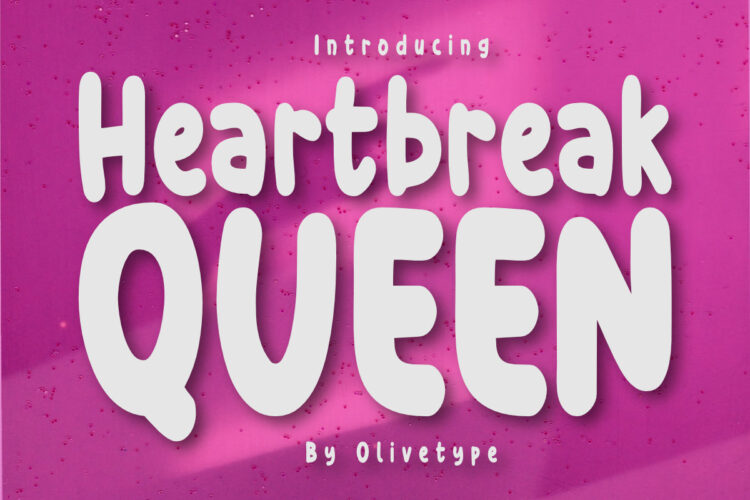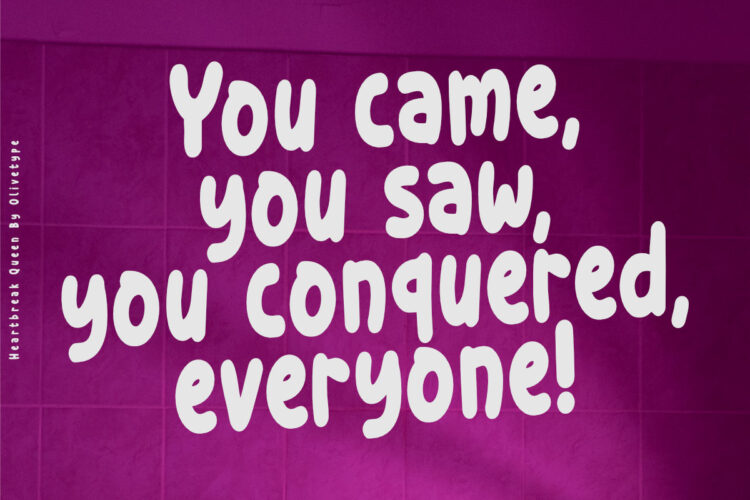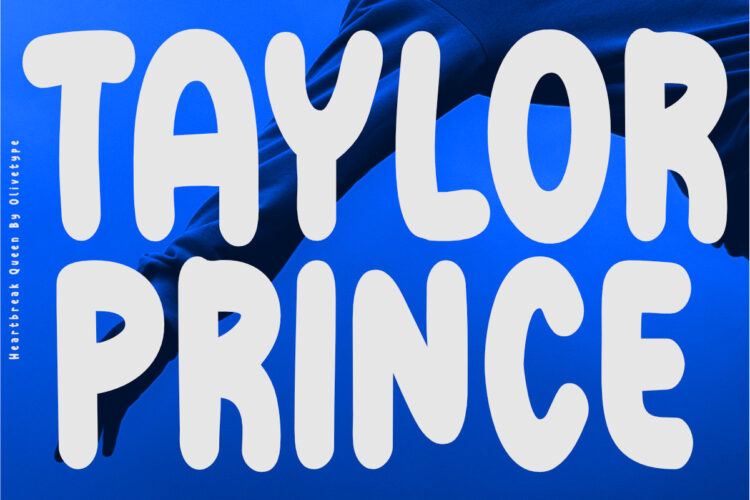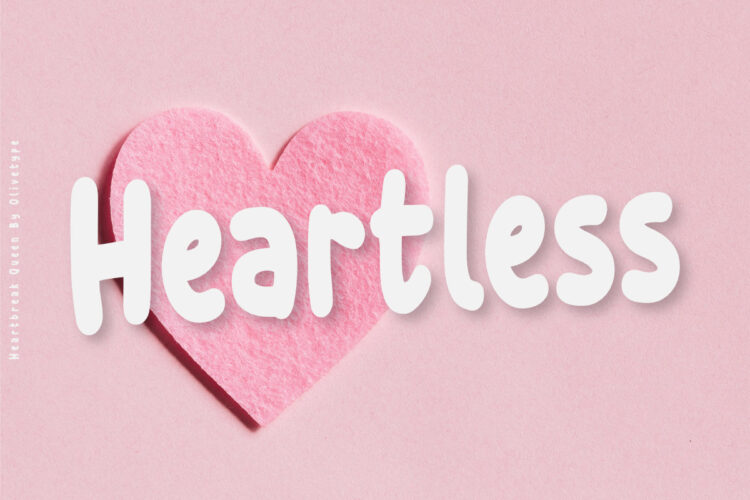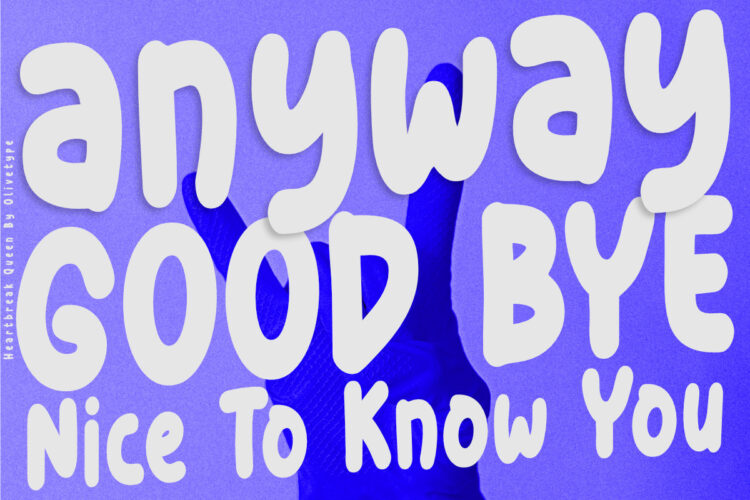
Introducing Heartbreak Queen, a bold and playful typeface suitable for any project that needs a touch of fun. With its smooth curves and playful letterforms, Heartbreak Queen radiates confidence and creativity in simplicity. Whether designing a new logo, packaging a product, or creating attention-grabbing headlines, this font is the right choice.